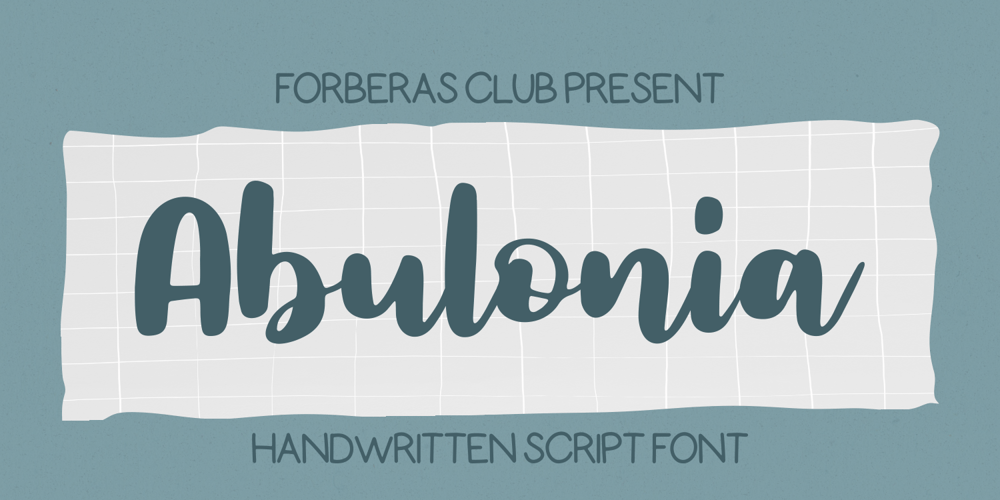
Abulonia Font Family was designed by ANGGI HERMAWAN and published by Forberas Club. Abulonia contains 1 styles and family package options. Abulonia is unique script font with handwritten style. Very nice if you use it for cute or beauty themes and memories.